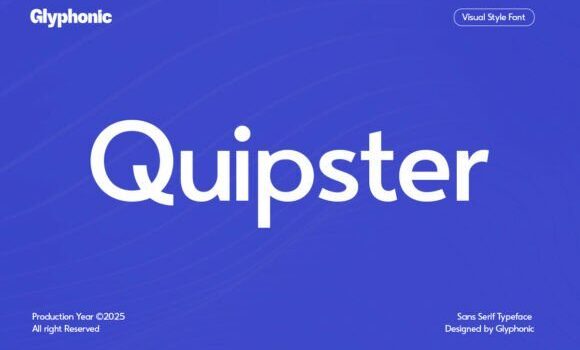
quipster
Quipster Font – Free Download Introduction to Quipster Font Quipster is a modern sans font that blends modern elegance with future style. 📸 Preview Gallery 6 images 📌 Product Name Quipster Font 👤 Author Glyphonic 📂 Category Explore ⬇️ Download